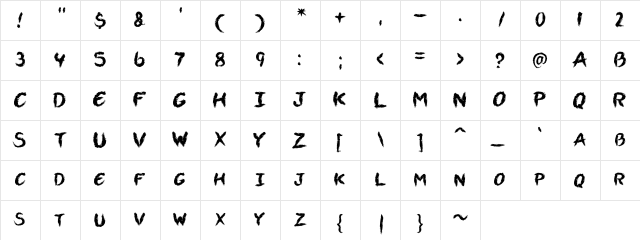
Complete VTCAllSkratchedUpOne Regular glyph index. Displaying only characters natively supported by VTCAllSkratchedUpOne Regular font.
VTCAllSkratchedUpOne is a composed and adaptable typeface that performs quietly and consistently across a wide range of design contexts.